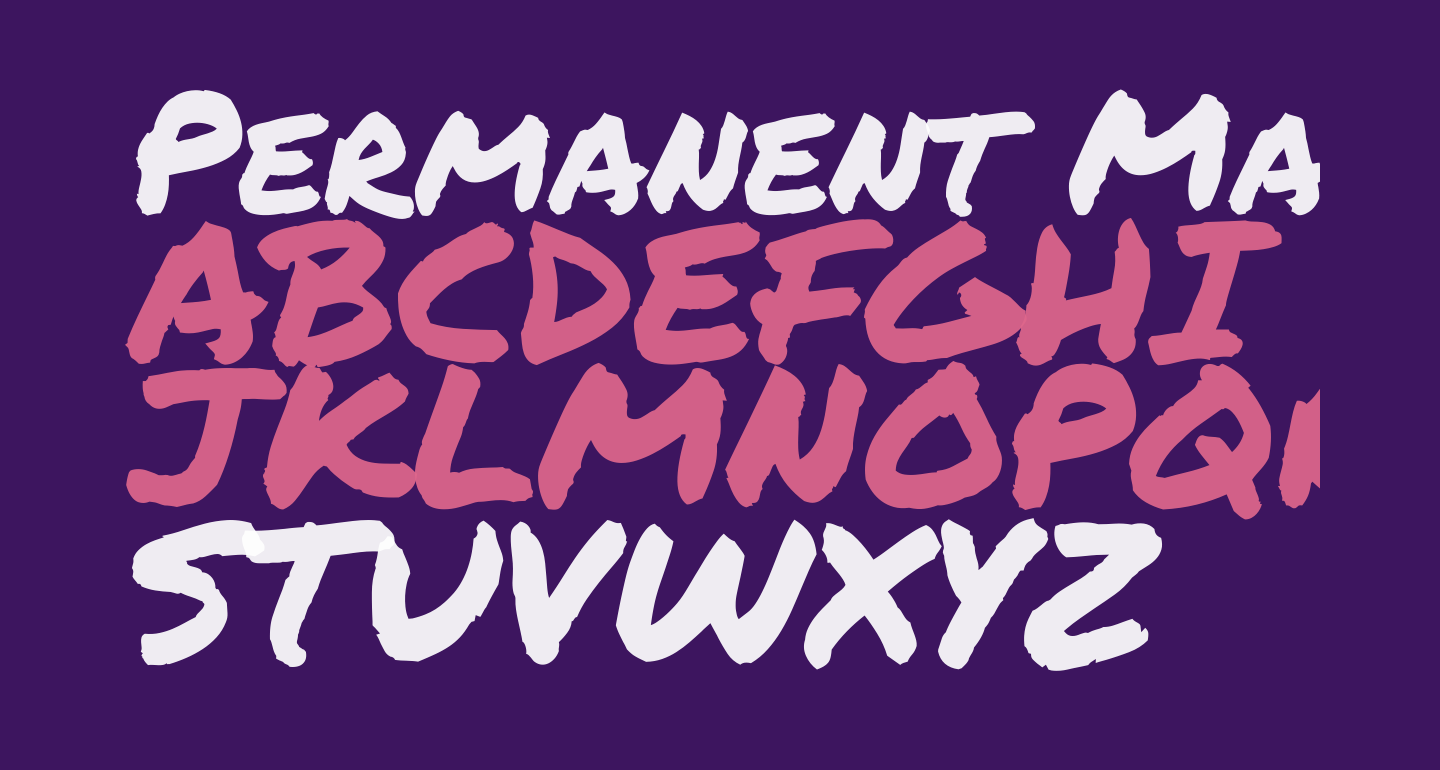
Permanent Marker Font Powerpoint . Download permanent marker font · free for commercial use · don't you wish there were some way to capture the essence of permanent marker on your. A handmade typeface with 1 style, available from adobe fonts for sync and web. Permanent marker represents the look and feel of a favorite writing instrument. Download and install the permanent marker. Explore permanent marker available at adobe fonts. Permanent marker font is licensed under apache license and free for both personel and commercial usages. Download and install the permanent marker font by font diner. The permanent marker font has been downloaded 89,519 times. Permanent marker font is a script, brush font designed by font diner. Free download of permanent marker font.
A handmade typeface with 1 style, available from adobe fonts for sync and web. Free download of permanent marker font. Permanent marker font is licensed under apache license and free for both personel and commercial usages. Permanent marker font is a script, brush font designed by font diner. Download and install the permanent marker. Permanent marker represents the look and feel of a favorite writing instrument. Explore permanent marker available at adobe fonts. The permanent marker font has been downloaded 89,519 times. Download and install the permanent marker font by font diner. Download permanent marker font · free for commercial use · don't you wish there were some way to capture the essence of permanent marker on your.
Permanent Marker Font Powerpoint A handmade typeface with 1 style, available from adobe fonts for sync and web. Permanent marker font is licensed under apache license and free for both personel and commercial usages. Permanent marker represents the look and feel of a favorite writing instrument. Free download of permanent marker font. The permanent marker font has been downloaded 89,519 times. Permanent marker font is a script, brush font designed by font diner. Download and install the permanent marker. A handmade typeface with 1 style, available from adobe fonts for sync and web. Explore permanent marker available at adobe fonts. Download permanent marker font · free for commercial use · don't you wish there were some way to capture the essence of permanent marker on your. Download and install the permanent marker font by font diner.